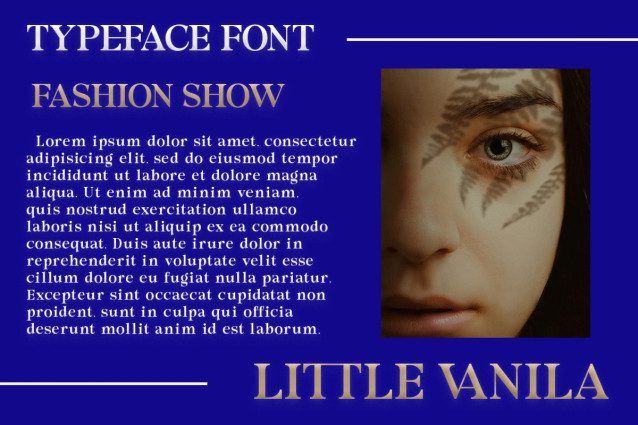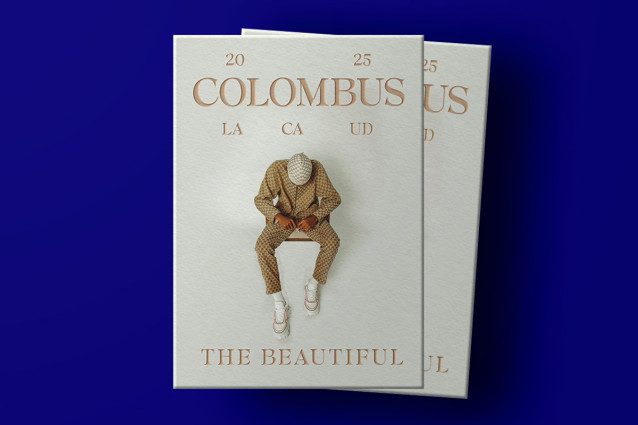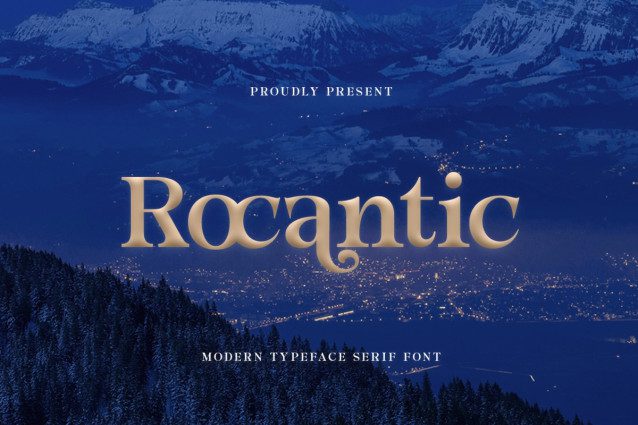
Rocantic Font
Rocantic Font is a serif font with an elegant and classic design, crafted to convey a luxurious and romantic impression. This font is typically characterized by its refined serif details, sharp features, and balanced proportions, making it perfect for projects that require a graceful and sophisticated look.
Fonts like Rocantic are commonly used in graphic design projects for logos, posters, business cards, and more, aiming to highlight a romantic and premium atmosphere.